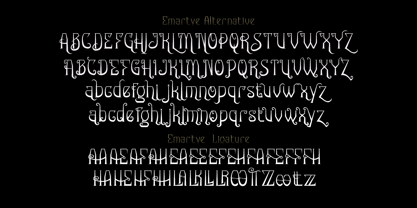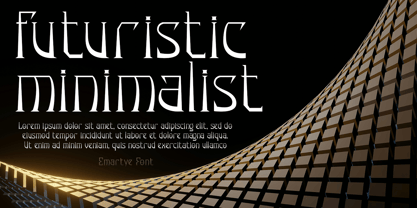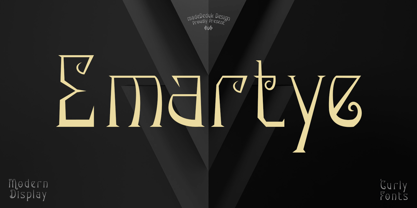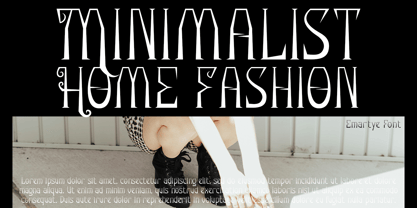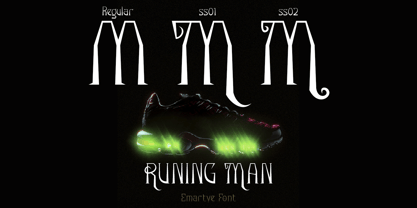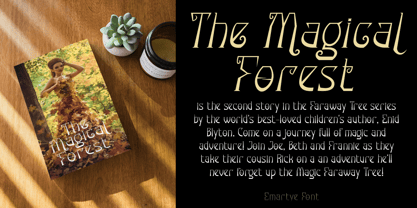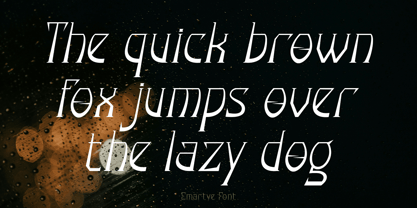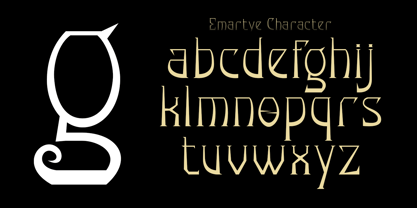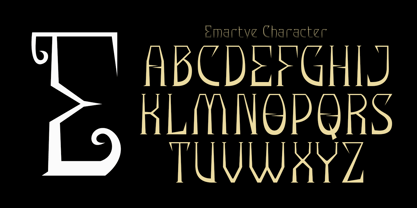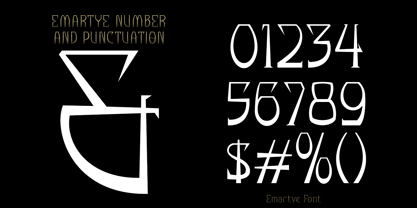
Emartye
by madeDeduk
The Emartye Font Family was designed by madededuk and published by madeDeduk. Emartye contains 2 styles and family package options. More about this family
Emartye is a display font which modern and curly will bring your project a strong and powerful touch. Browse through all the previews and get as inspired as I was when creating this font. This font is very perfect for many display purposes in your product design if you want to a modern vintage style look. Such as book covers, product labels, logos badges, drink bottles, tattoo shop, coffee shops, and many more.
Designers: madededuk
Foundry: madeDeduk